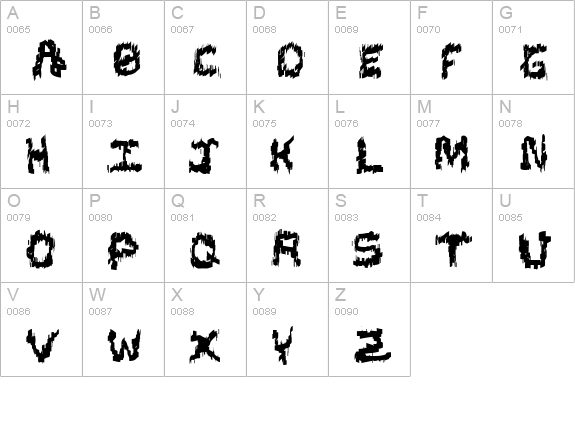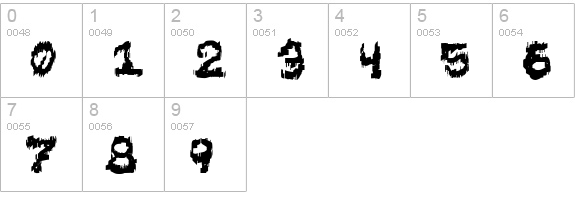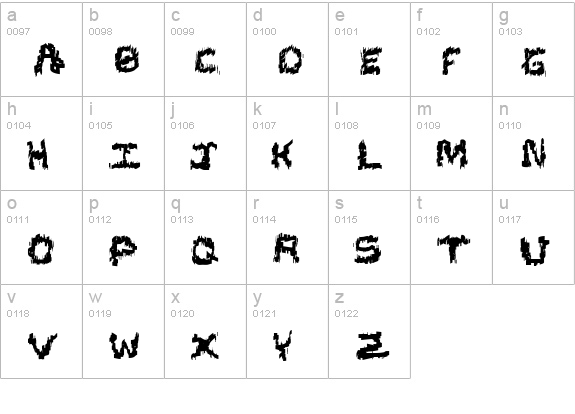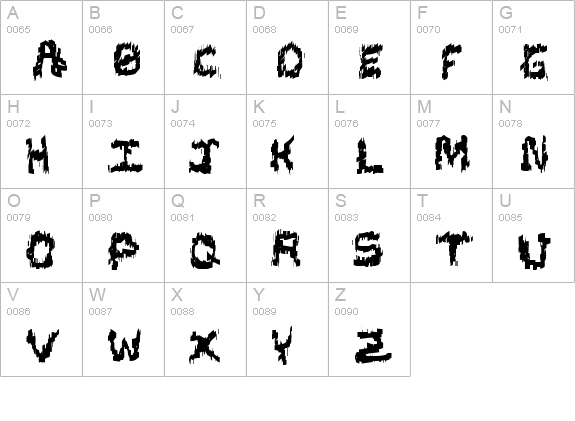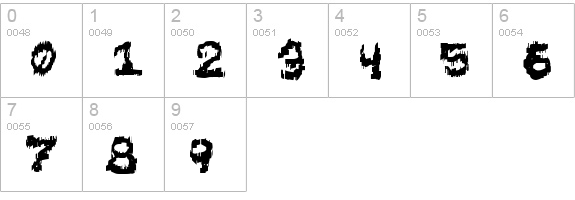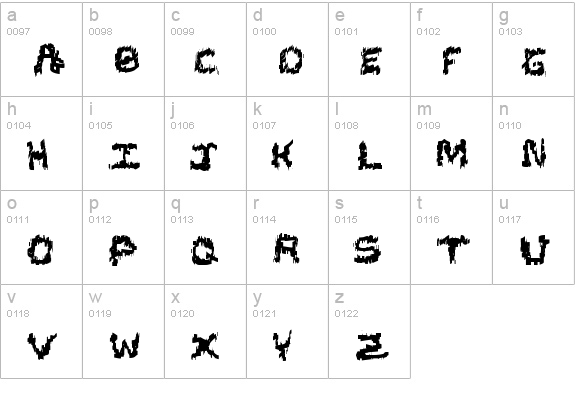
Black Shirt Slime Trail Font Details
Black Shirt Slime Trail is a maximum-weight, dramatic variant in the Black typeface family \xE2\x80\x94 well suited to maximum-impact headlines, posters, and packaging.
Introducing Black Shirt Slime Trail font, a striking and unique typeface that exudes a sense of mysterious elegance. This font features bold and intricate letterforms that create a captivating visual impact, making it perfect for a wide range of design projects. With its edgy style and modern aesthetic, Black Shirt Slime Trail font is sure to grab attention and leave a lasting impression. The intricate details of the letters give this font a sense of depth and texture, adding a touch of sophistication to any design. Best of all, Black Shirt Slime Trail font is available for free download at FontsMarket.com, making it easily accessible for designers and creatives looking to add a touch of intrigue to their projects. Don't miss out on the opportunity to enhance your designs with this stunning and versatile font. Download Black Shirt Slime Trail font today and let your creativity soar!